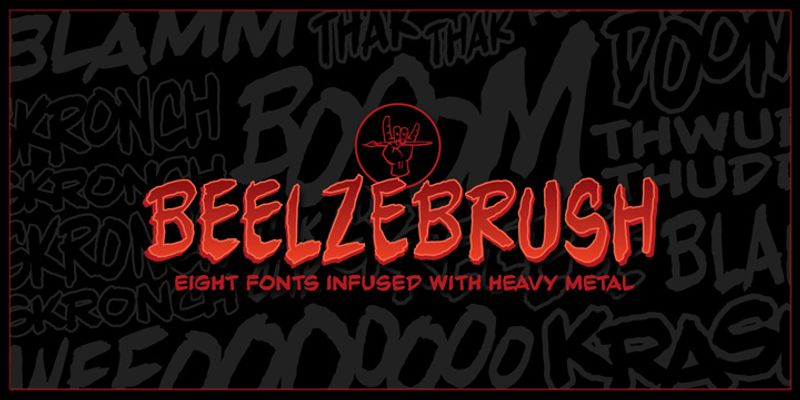
Beelzebrush BB is a multifaceted family of eight fonts inspired by heavy metal. Beelzebrush BB Regular, Italic, Alt, and Alt Italic are condensed with rougher edges and shapes, while Black, Black Italic, Black Alt, and Black Alt Italic are heavier with more uniform edges.